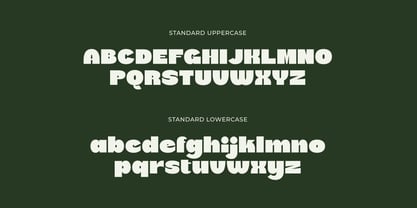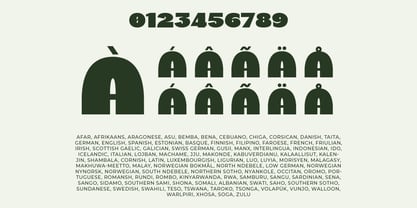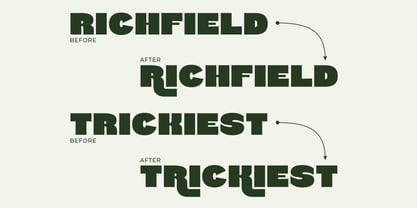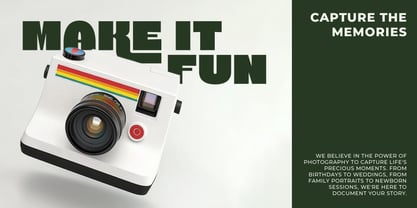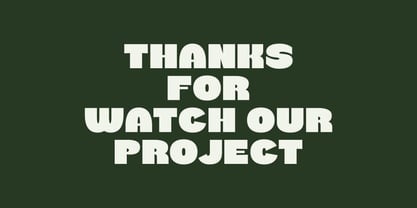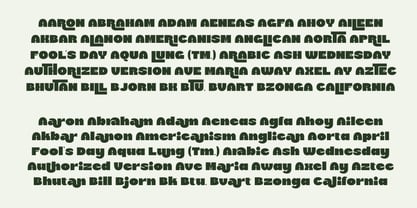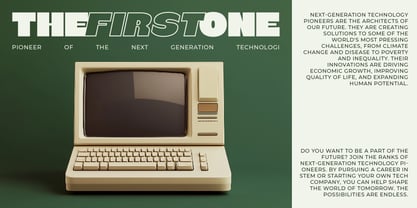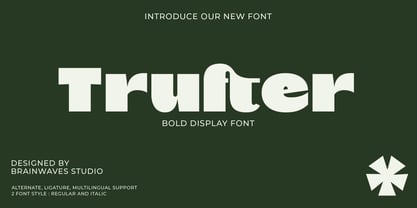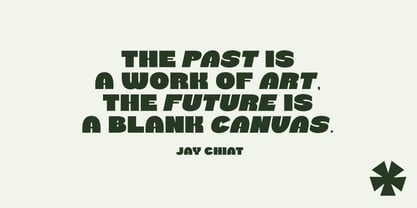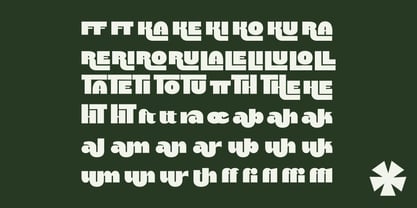
Trufter
by Brainwaves Studio
The Trufter Font Family was designed by Lucky Fitriadi and published by Brainwaves Studio. Trufter contains 2 styles and family package options. More about this family
Trufter - Bold Retro Charm for Modern Designs
Step back in time while staying ahead of the curve with Trufter, a bold retro-inspired display font designed to make your projects pop. Combining vintage aesthetics with a modern twist, Trufter is perfect for branding, posters, packaging, and more.
Why Choose Trufter?
• Retro Flair: Captures the timeless elegance of vintage design with bold, playful shapes.
• Versatility: Available in Regular and Italic styles, adaptable to any creative vision.
• Smart Features: Packed with alternates, ligatures, and multilingual support to give your designs a polished, global appeal.
• Unmistakable Impact: Bold and confident, Trufter ensures your work stands out.
Perfect for Retro-Lovers & Modern Creators
Whether you're working on branding, editorial layouts, or creative campaigns, Trufter’s retro charm adds warmth and personality to every project. Ideal for anyone seeking a bold, nostalgic touch in their design.
Trufter is your ticket to turning ordinary projects into extraordinary statements. Revive the beauty of retro with Trufter and bring your ideas to life!
Designers: Lucky Fitriadi
Foundry: Brainwaves Studio